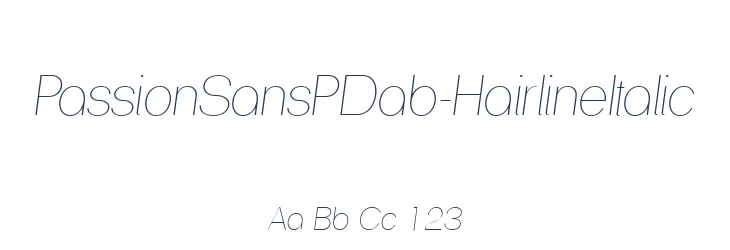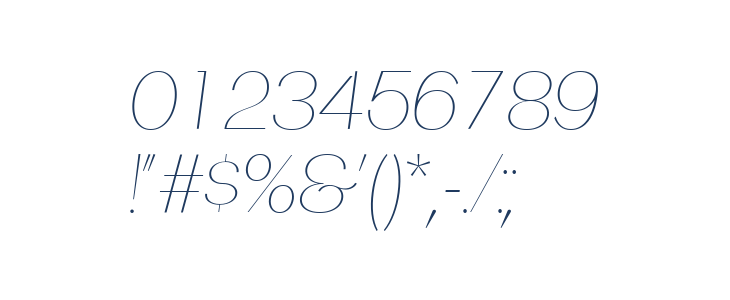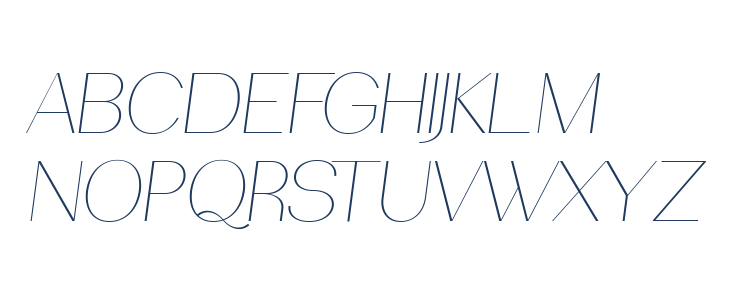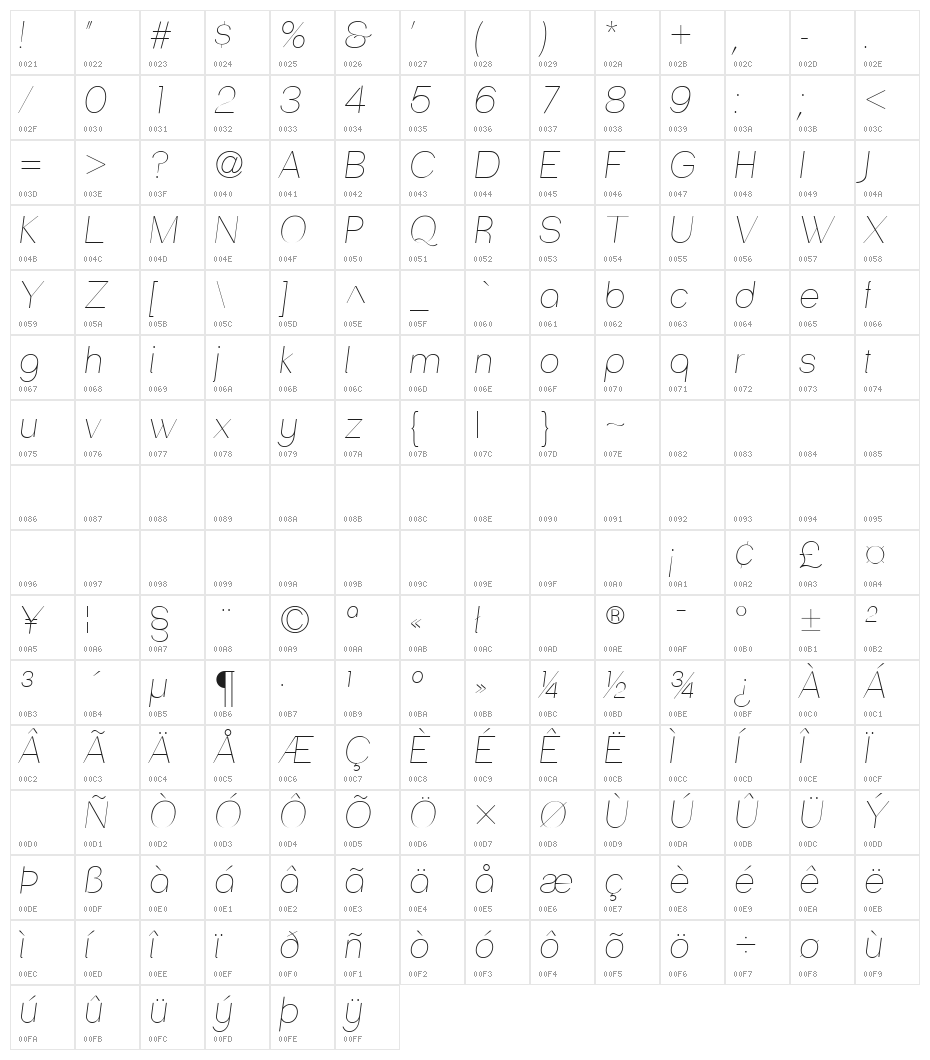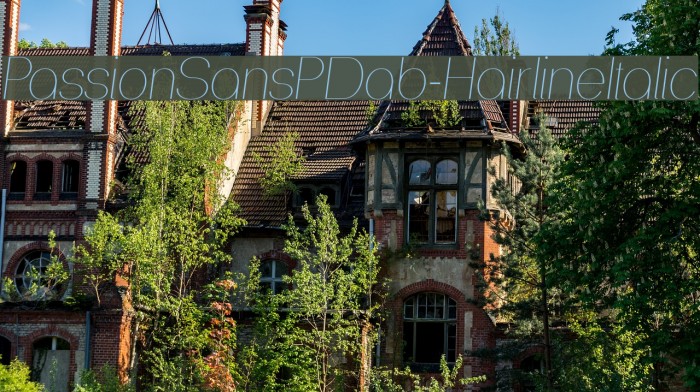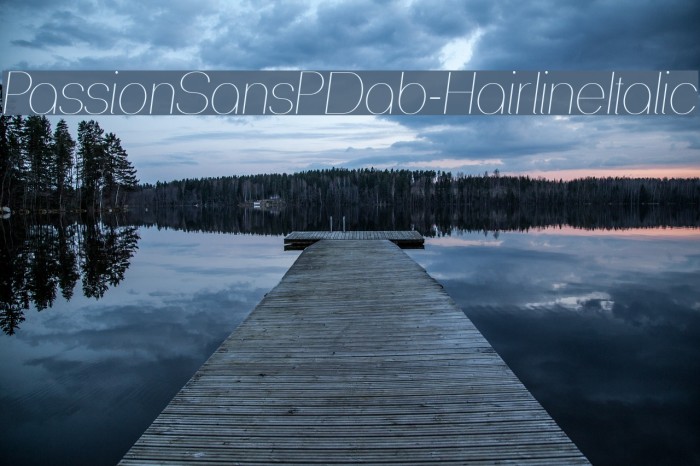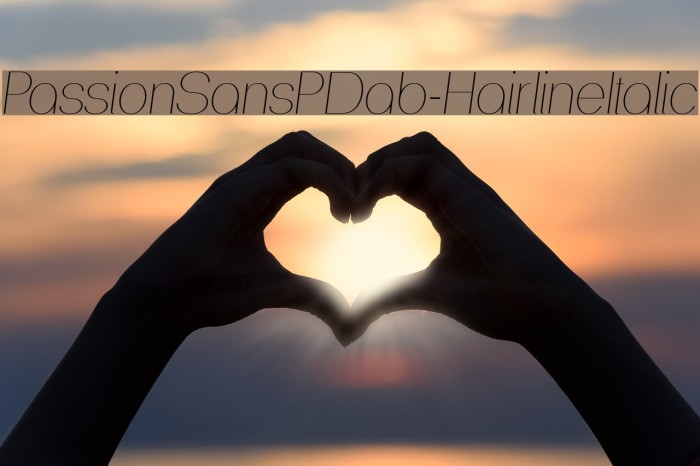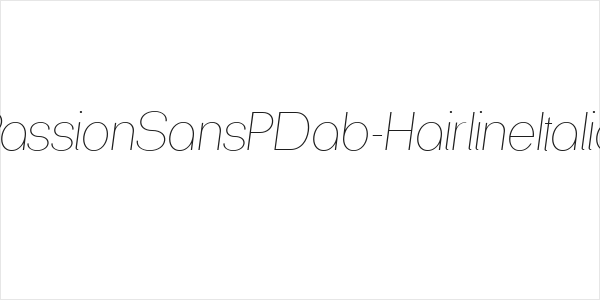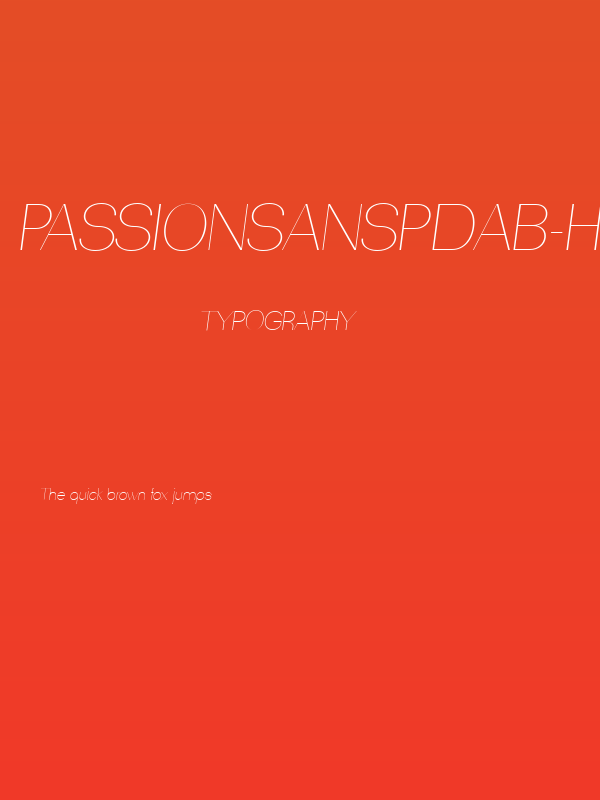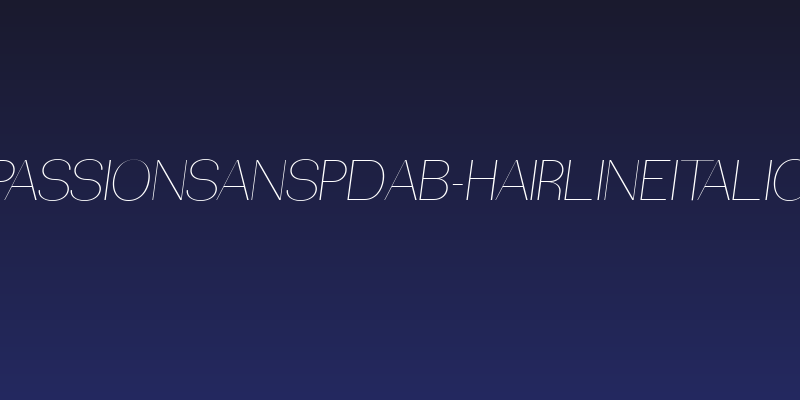
PassionSansPDab-HairlineItalic Font
PassionSansPDab-HairlineItalic Description
This font showcases a sleek and elegant design with a modern touch. Its thin, hairline strokes give it a delicate appearance, while the italic slant adds a sense of motion and fluidity. The characters are well-proportioned, maintaining a consistent height and width throughout, which enhances readability. The uppercase letters are tall and commanding, while the lowercase letters are more rounded and approachable. The numerals are clear and distinct, making them suitable for both text and display purposes. Special characters are included, maintaining the font's cohesive style.